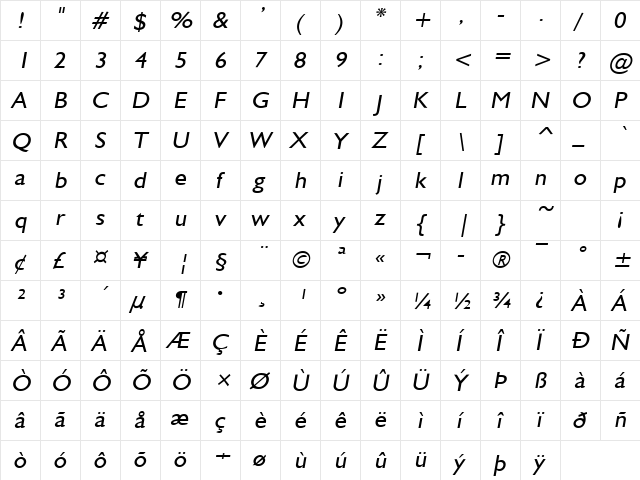
Gibraltar Italic
Design Context for Gibraltar Typeface
Gibraltar is a composed and adaptable typeface that performs quietly and consistently across a wide range of design contexts. Its italic angle brings a sense of urgency and motion to the letterforms.
Pro Tip: Use Gibraltar for emphasis, pull quotes, and subheadings where its slanted energy can add rhythm to the layout.